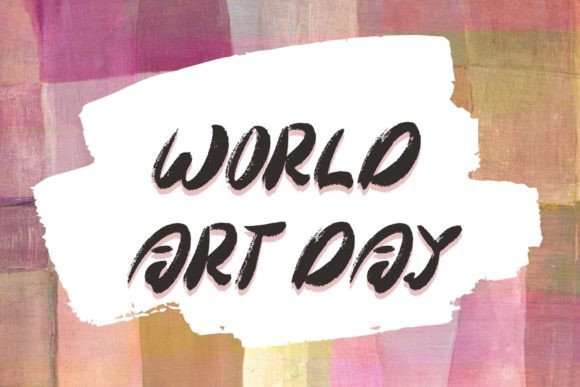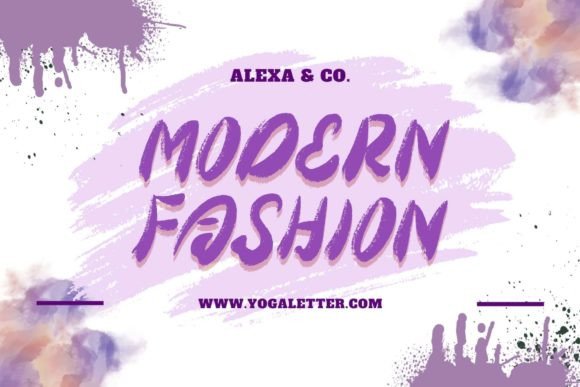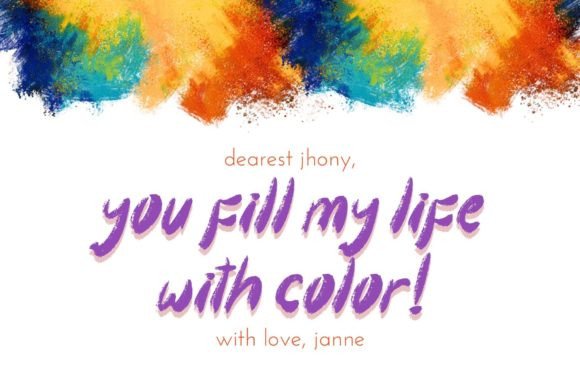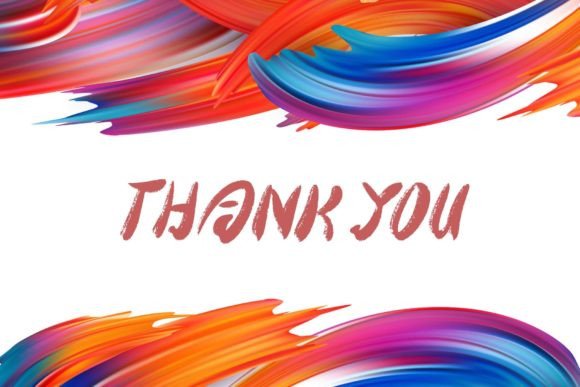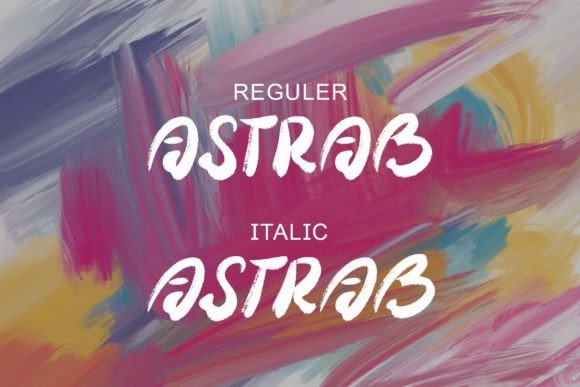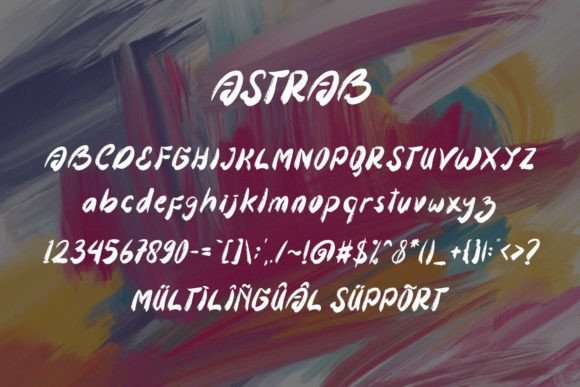
Introducing Astrab Font: Elevate Your Designs with Elegance
Are you on the hunt for a font that exudes elegance and sophistication? Look no further than Astrab Font, a modern brush font that is sure to take your designs to the next level. With its beautiful, flowing lines and extensive character set, Astrab Font is the perfect choice for designers and crafters looking to add a touch of luxury to their work.
What Makes Astrab Font Special?
“Astrab” is a very elegant modern brush font, carefully crafted to provide a wide range of design possibilities. This font is equipped with:
- Uppercase and lowercase letters, allowing for versatile text arrangements
- Numerals and punctuation marks, ensuring you have everything you need to create stunning designs
- Multilingual support, making it easy to work with text in various languages
Astrab Font is suitable for a wide range of design applications, including:
- Logos: Create a lasting impression with a custom logo that showcases your brand’s personality
- Banners: Grab attention with eye-catching banners that feature Astrab Font’s elegant lines
- Posters: Design stunning posters that convey your message in style
- Prints: Add a touch of sophistication to your prints, whether they’re for business or personal use
- Branding: Establish a strong brand identity with Astrab Font’s luxurious feel
- Stickers: Create custom stickers that are both fun and elegant
- Business branding: Elevate your business’s visual identity with Astrab Font’s professional look
- SVG: Use Astrab Font in your SVG designs for a crisp, high-quality finish
- KDP: Create stunning Kindle Direct Publishing (KDP) designs that showcase your work
- Christmas, graduation, 4th of July, and more: Astrab Font is perfect for holiday-themed designs and special occasion projects
Why Choose Astrab Font?
With so many fonts available, why choose Astrab Font? Here are just a few reasons why designers and crafters love working with this elegant modern brush font:
- Elegant lines: Astrab Font features beautiful, flowing lines that add a touch of sophistication to any design
- Versatility: With its extensive character set and multilingual support, Astrab Font can be used in a wide range of design applications
Tips for Using Astrab Font
To get the most out of Astrab Font, here are a few tips to keep in mind:
- Experiment with different sizes and colors to find the perfect combination for your design
- Pair Astrab Font with complementary fonts to create visual interest
- Don’t be afraid to get creative and try out new and innovative design ideas